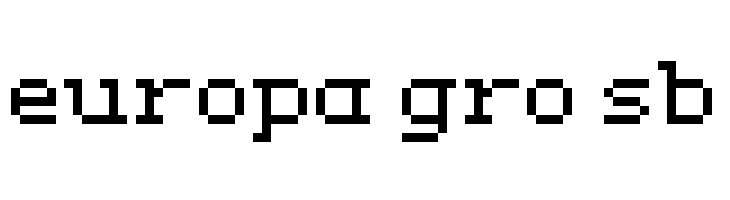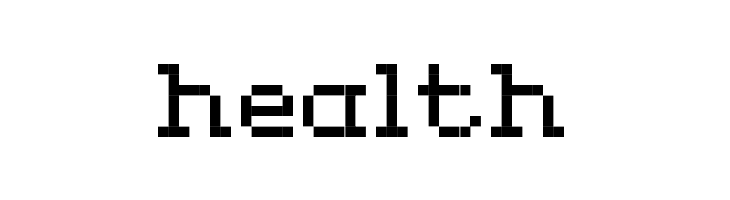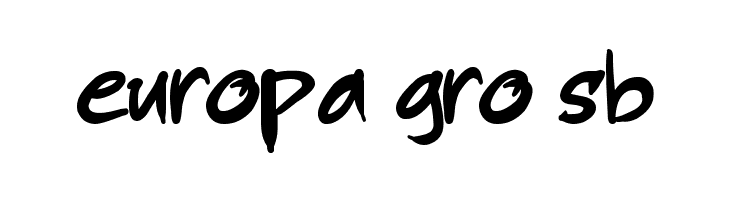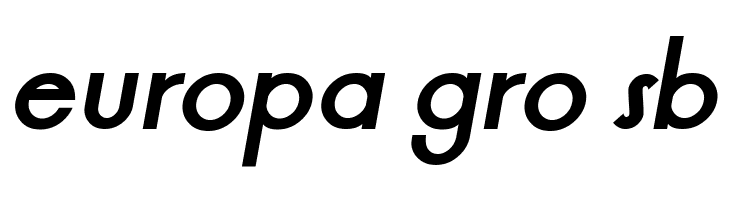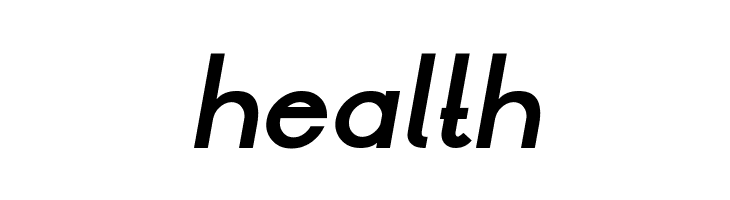
( Fonts by www.sweeep.fr - Damien Gosset )
A pixelated, retro-style font with a uniform blocky design.
( Fonts by Kurdz - vividbluezz.weebly.com )
A bold, energetic handwritten font with expressive strokes and a playful vibe.
( Fonts by Lauren Thompson - www.nymfont.com )
A bold, italicized font with dynamic and flowing letterforms.